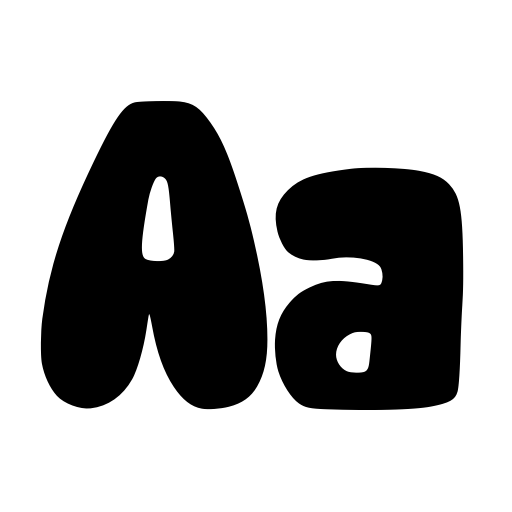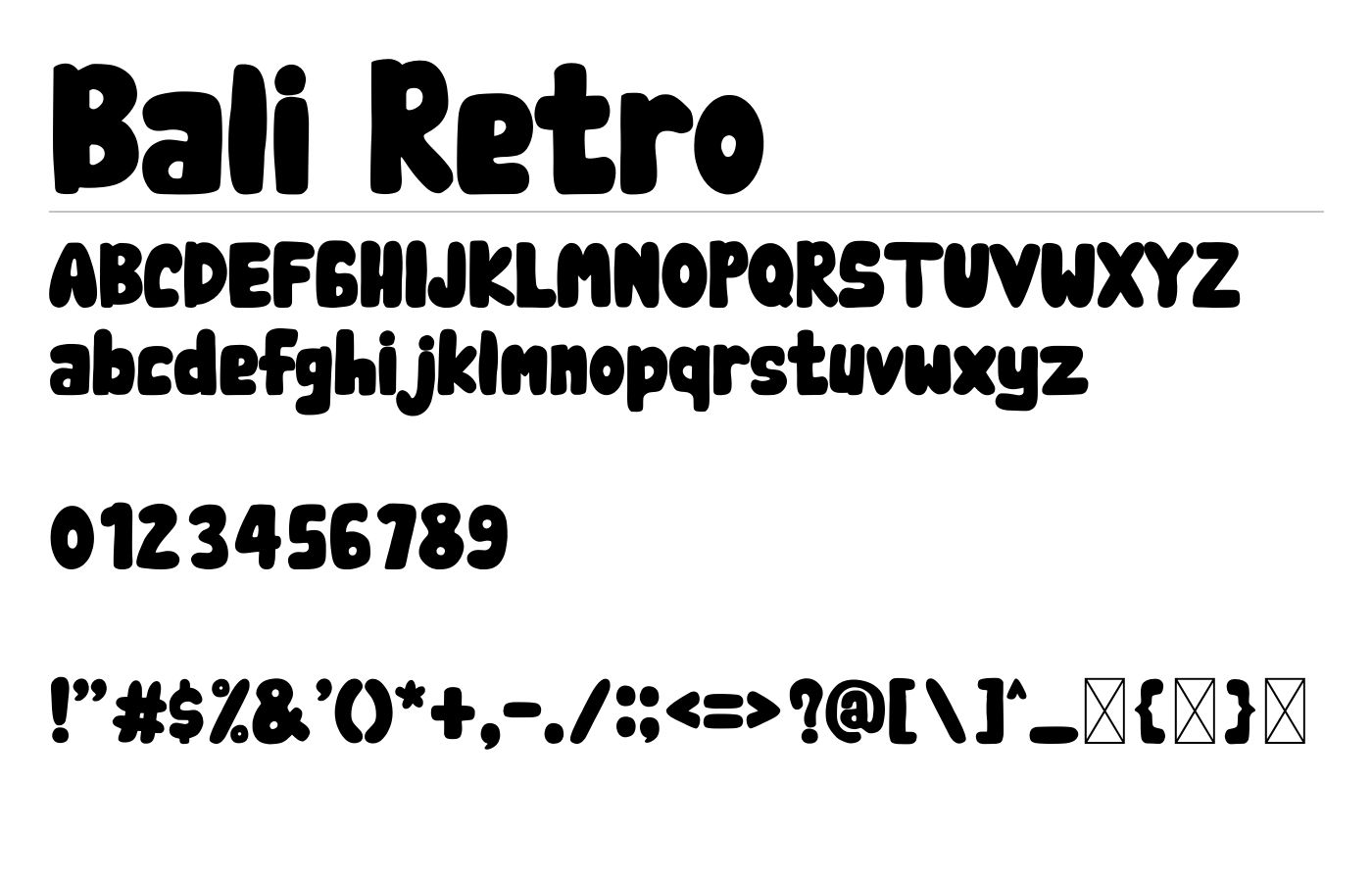
Bali Retro is a bold, playful sans serif font with a retro vibe, characterized by its thick, rounded letterforms and soft, friendly curves. Its chunky weight and consistent stroke create a casual, approachable feel, making it ideal for fun, eye-catching headlines, logos, or branding that seeks a nostalgic yet lively personality. This font works great for projects that want to convey warmth and cheerfulness, such as children's products, entertainment, or vintage-inspired designs.
Bali Retro Font
About Bali Retro Font
| Font family | Bali Retro Font |
| Designer | Masyafi Studio |